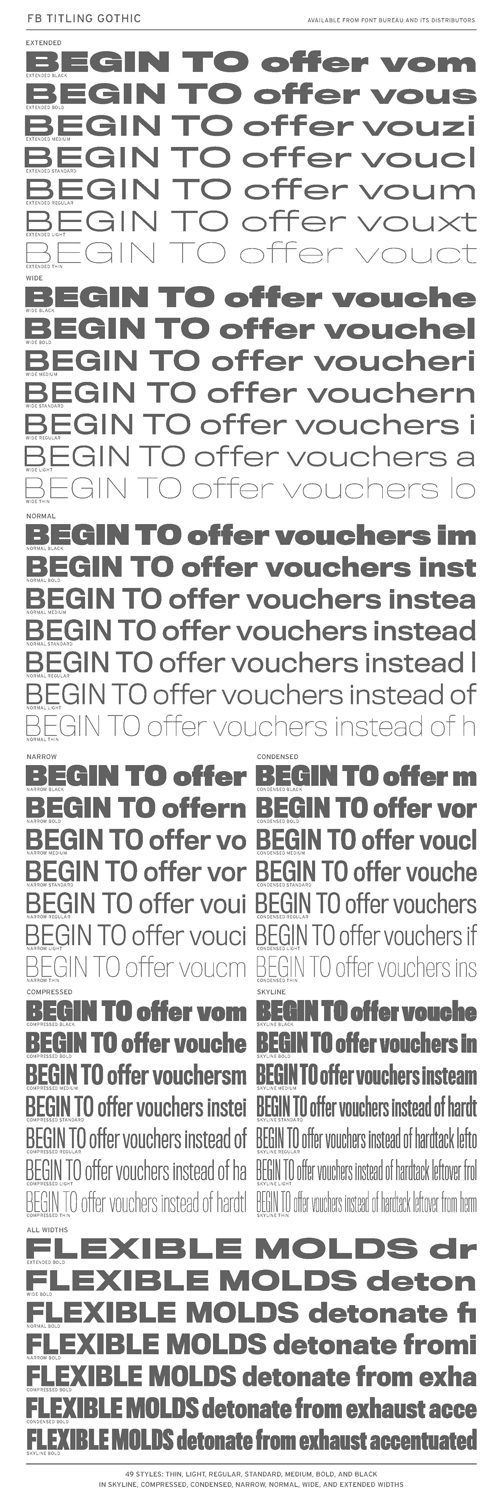
- FB Titling Gothic is an immense series of nearly fifty styles inspired by that century-old favorite ATF Railroad Gothic. Led by the Los Angeles Times and Gentleman’s Quarterly, US publications are using David Berlow’s new series to unify the structure of headlines from its wide spectrum of options. FB Titling Gothic started as a relative of Berlow’s Rhode family, but took its own direction around 1995. Among other uses, Titling Gothic FB is recommended for Newspaper, Magazine, Book and Corporate use.